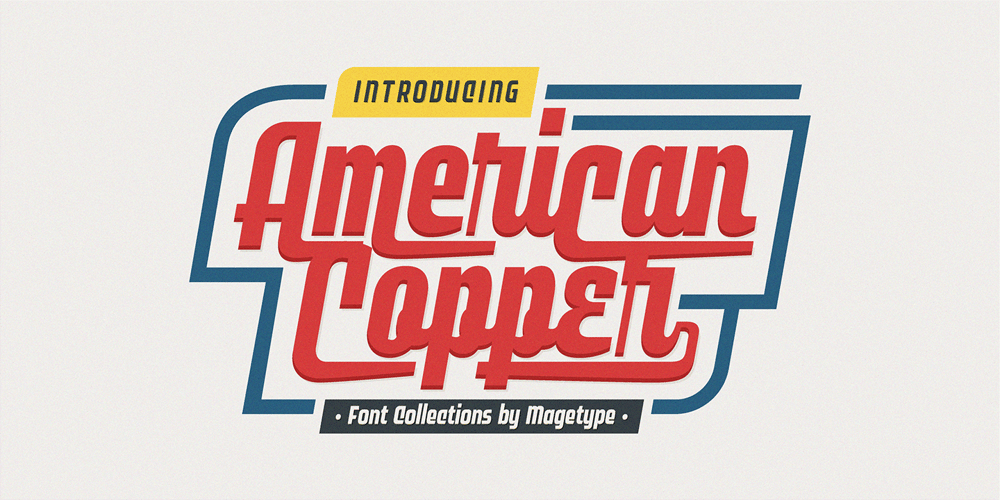
MGT American Copper
MGT American Copper font
MGT American Copper Font Family was designed by Setiadi Karya Pertiwi and published by Magetype. MGT American Copper contains 25 styles and family package options. American Copper Family is a vintage font inspired by an old American motorcycle logo. The logo looks very manly and strong, just like the motorbike. American Copper Script is the dominant one that turns the logo into a font. Whereas the Sans and Block family is a complement to the Script. But all three are a very good unit to be juxtaposed together.American Copper is a font made for you (designers) who love automotives: old cars and motorbikes. Anything related to automotive. Besides these two objects, this font is also very cool for music-themed design needs; rock n roll, metal, rockabilly, and others.Oh yes, Custom Culture is another very interesting thing to be depicted with this font. Workshop logo for example. It will look very unique with Interlock on American Copper Script. Pair it with American Copper Block. And, BOOM! The logo will look very manly.If you are curious, you can download the American Copper Script Demo version to try.Happy Designing.Cheers